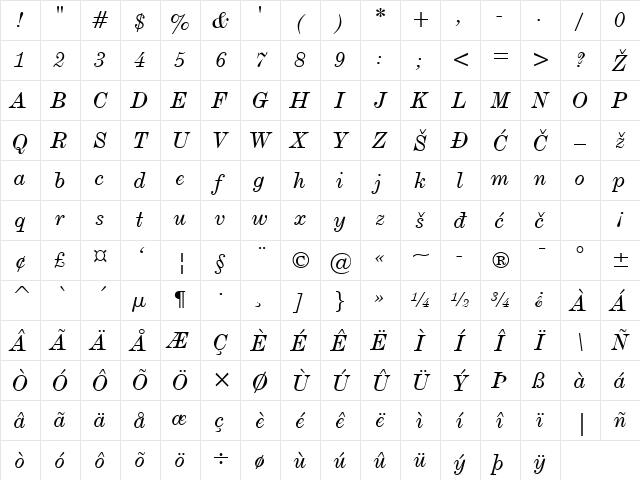
DeVinneText Italic Free Font
DeVinneText Italic
Design Context for DeVinneText
DeVinneText is a composed and adaptable typeface that performs quietly and consistently across a wide range of design contexts. The slanted form adds forward momentum and visual energy.